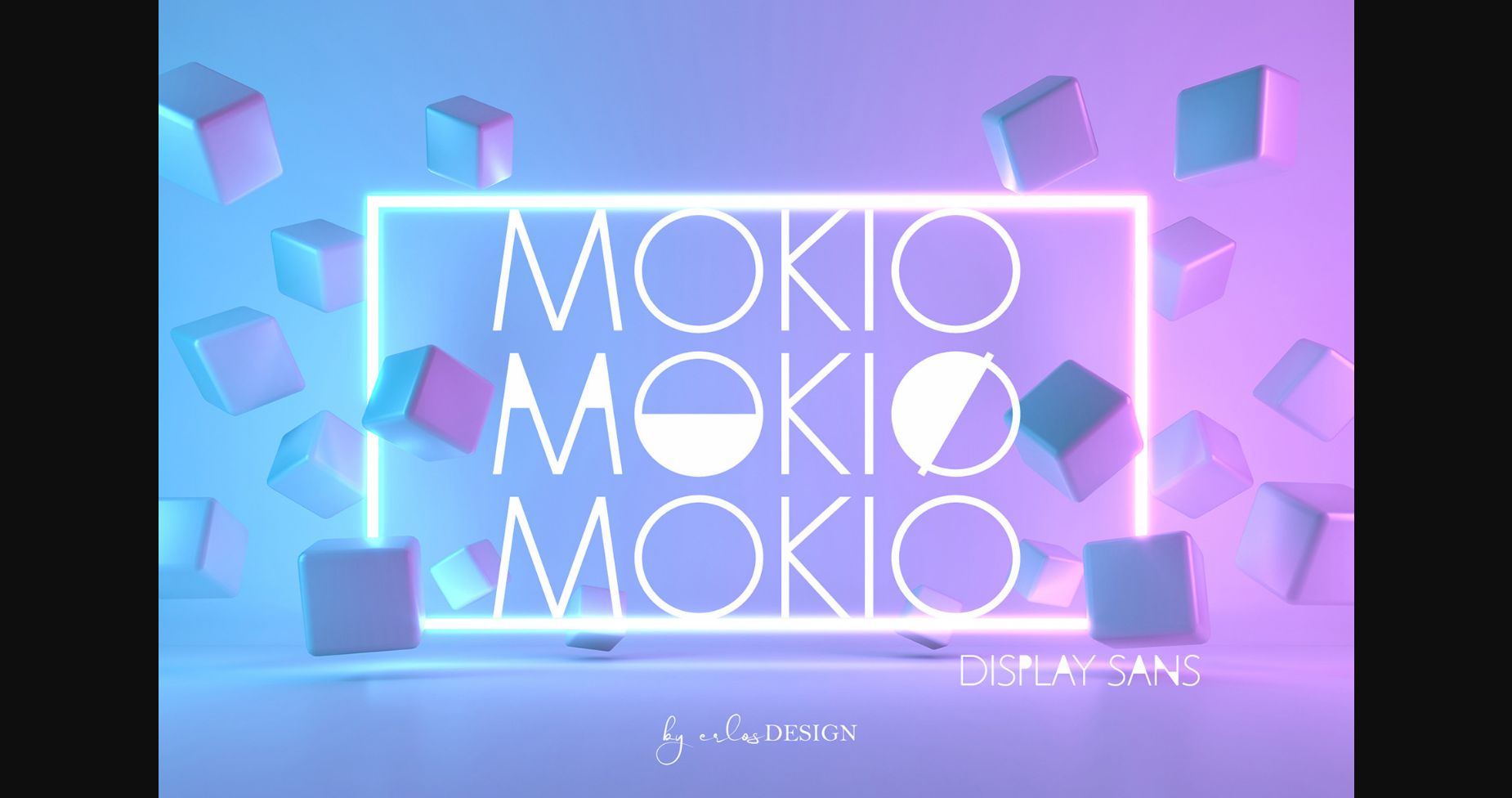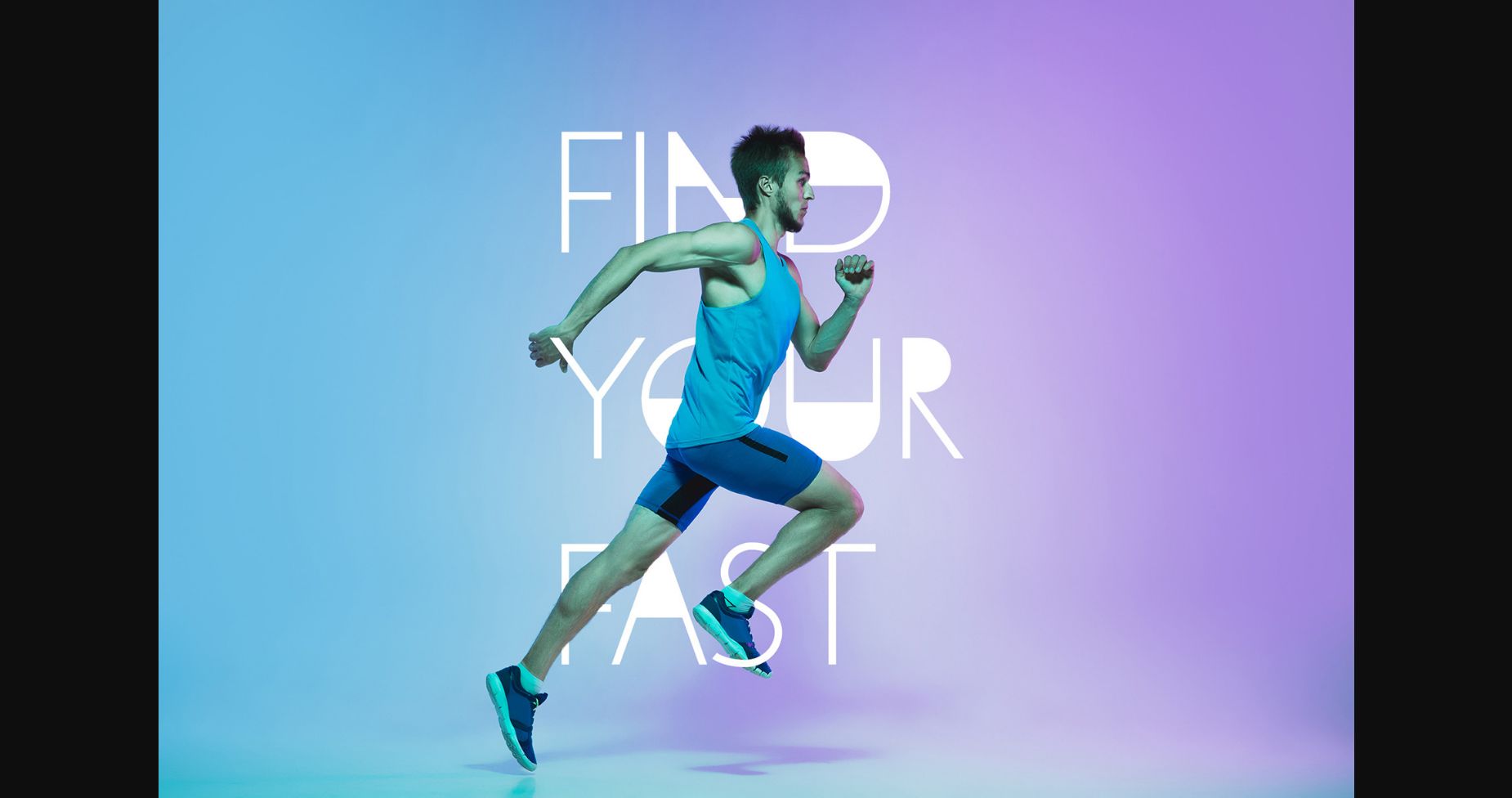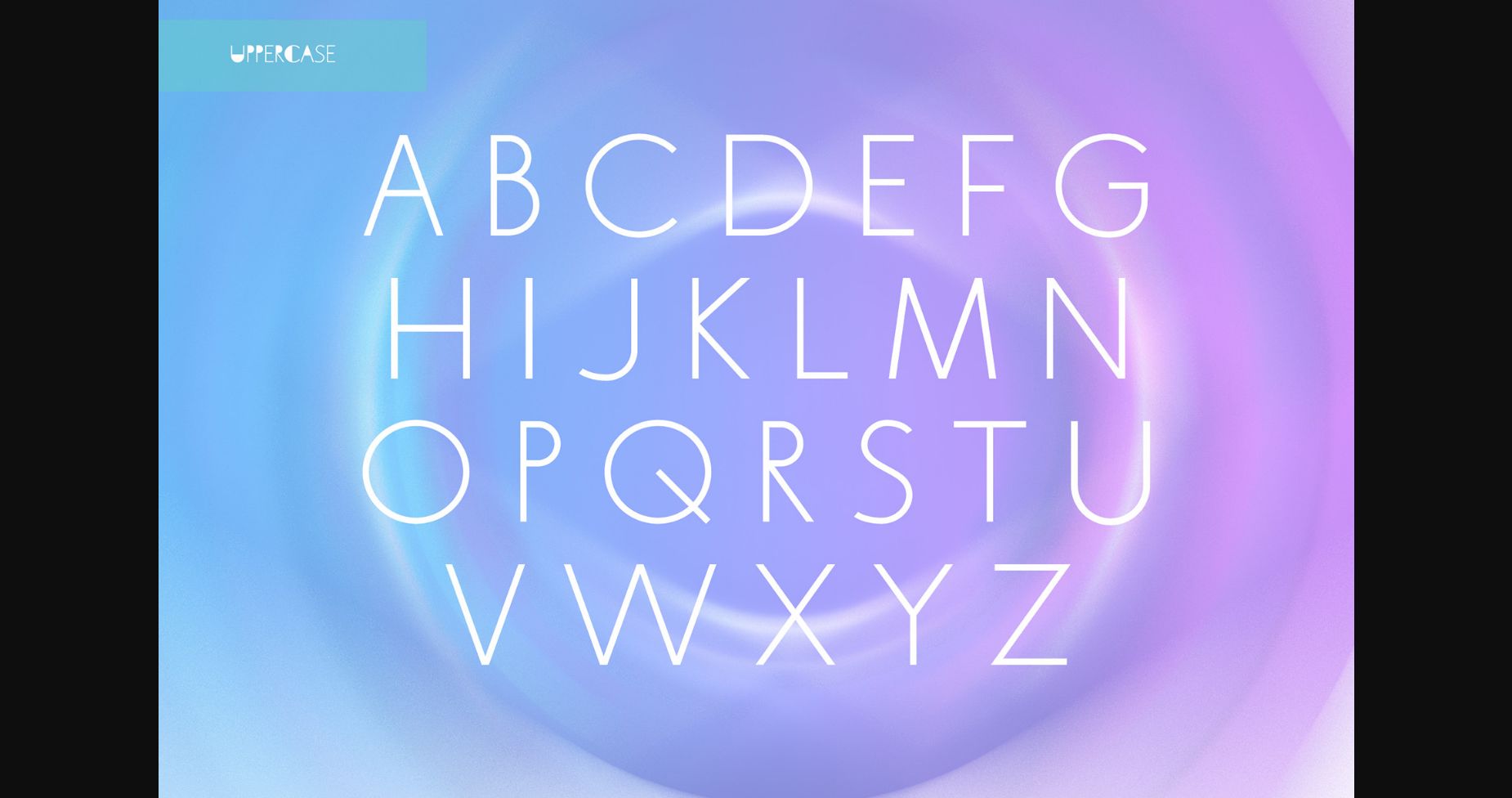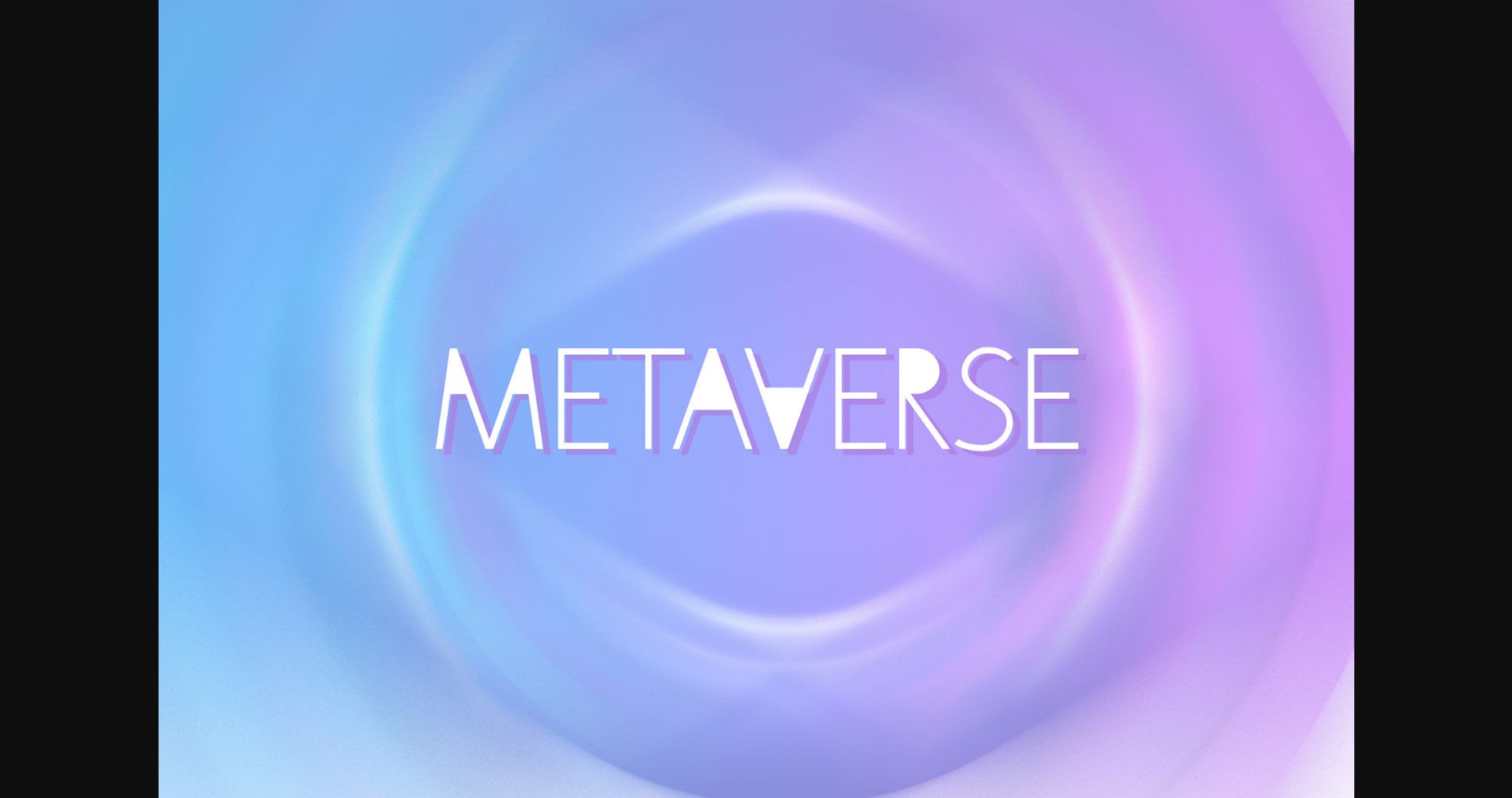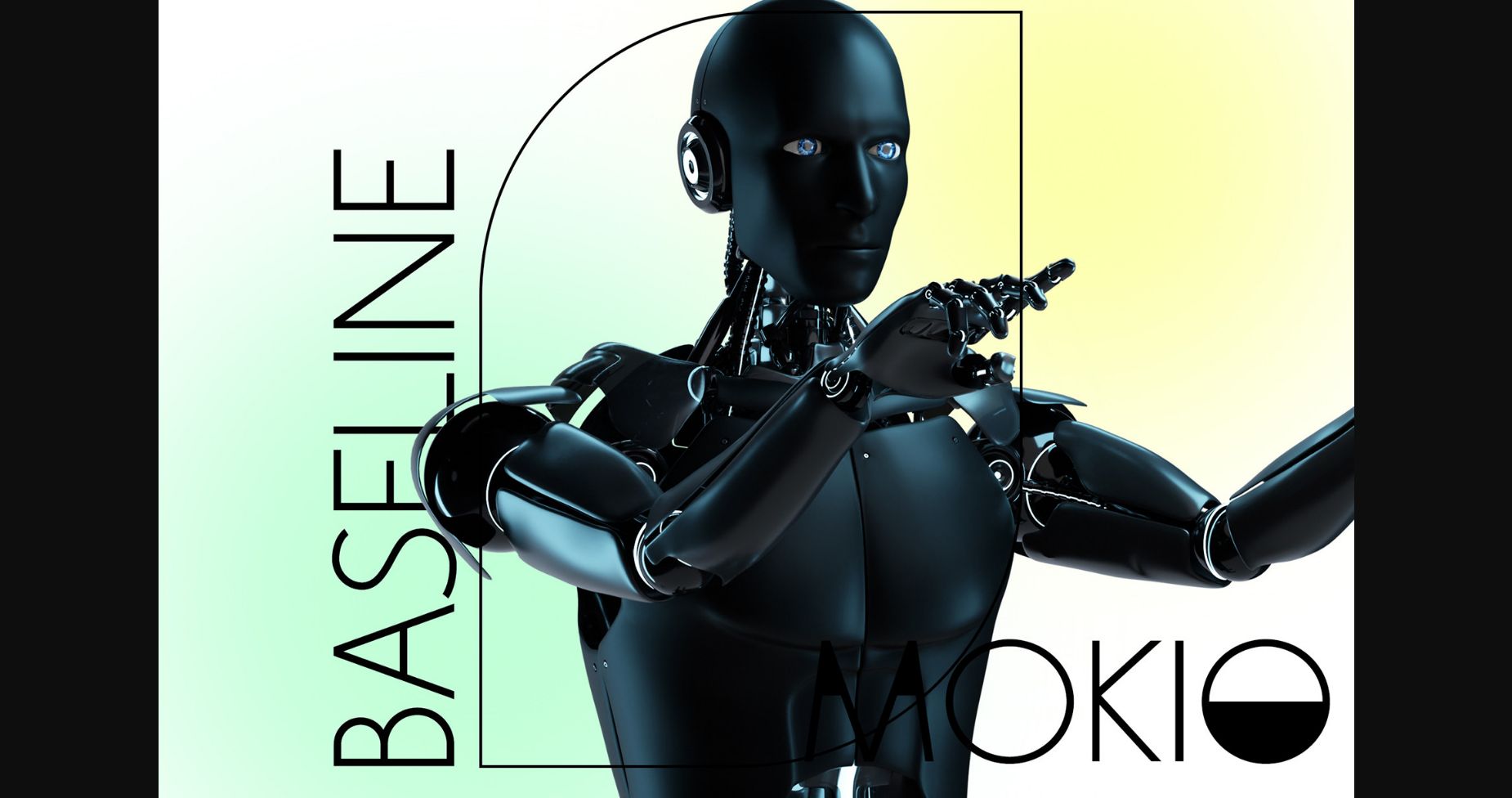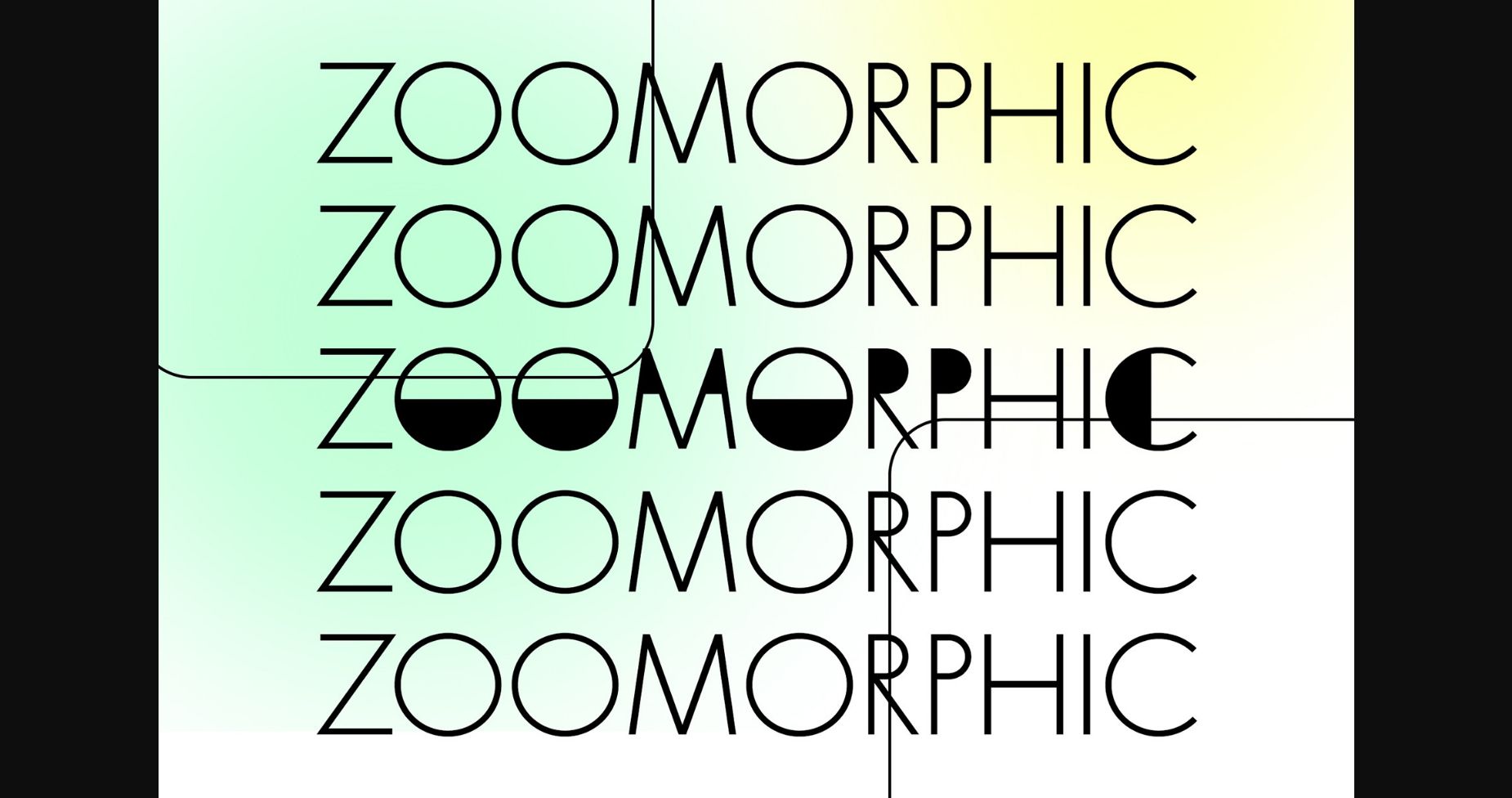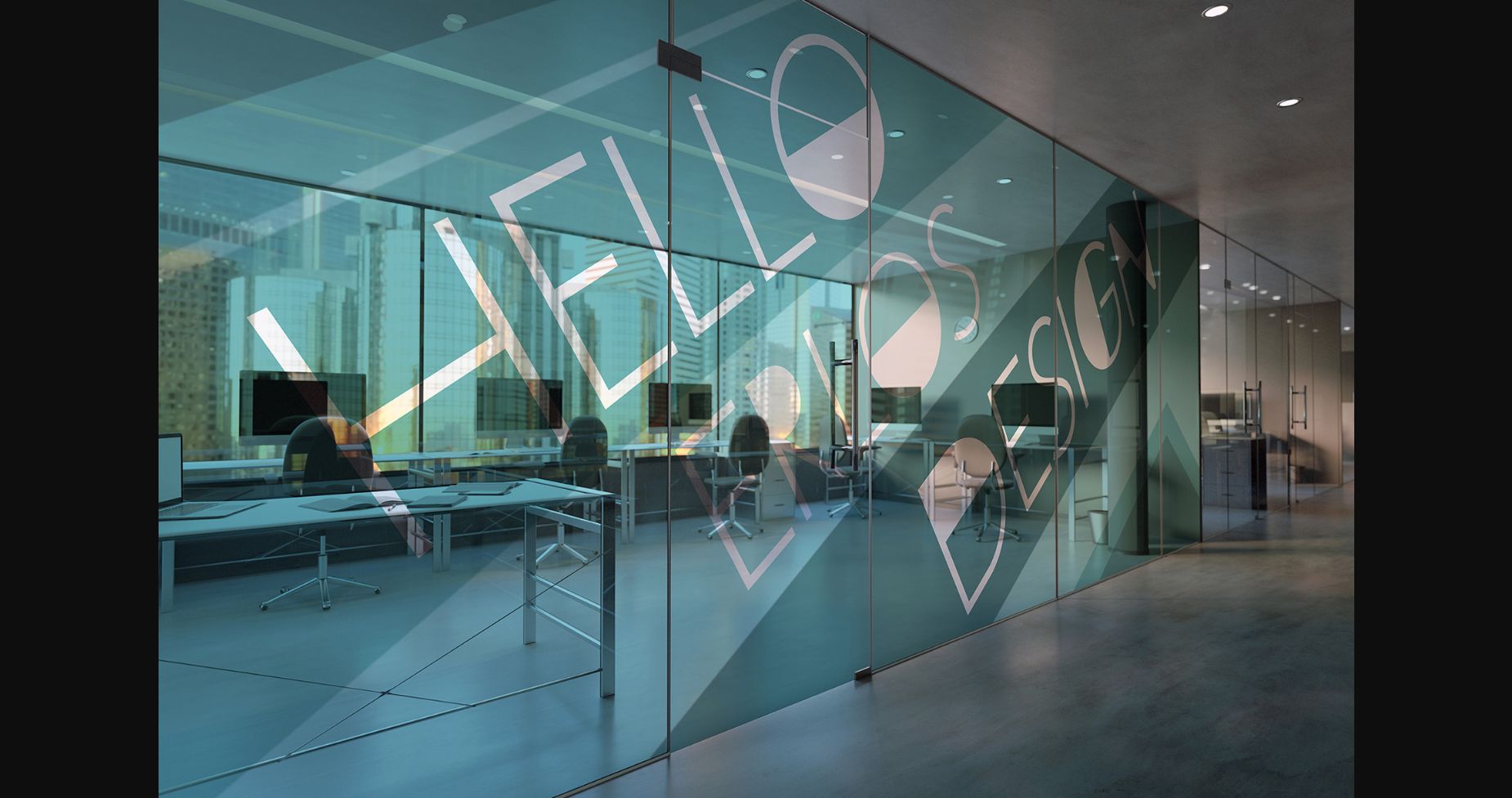
Mokio Font
About Mokio Font
Mokio is a geometric and clean sans serif font. No matter the topic, this font will be an incredible asset to your fonts’ library, as it has the potential to elevate any creation.